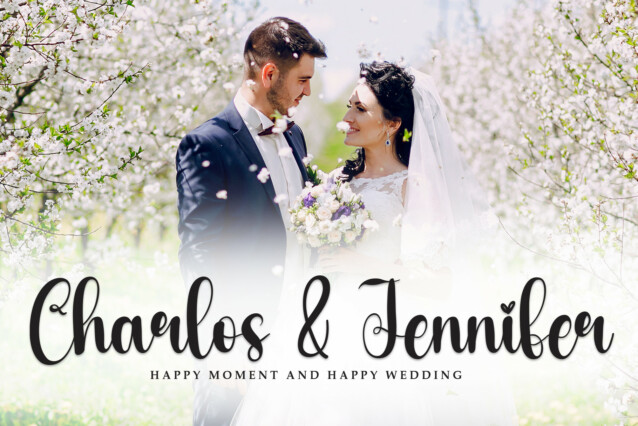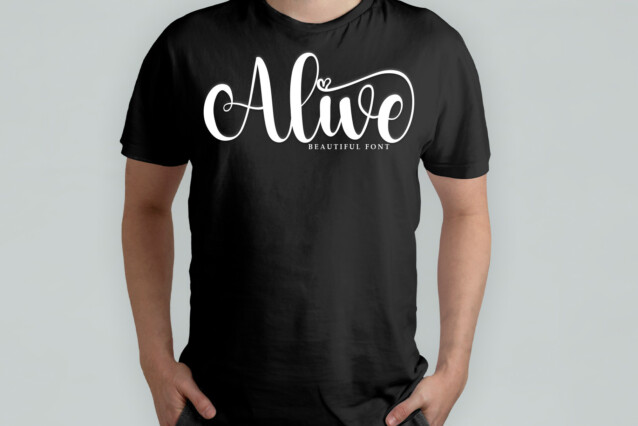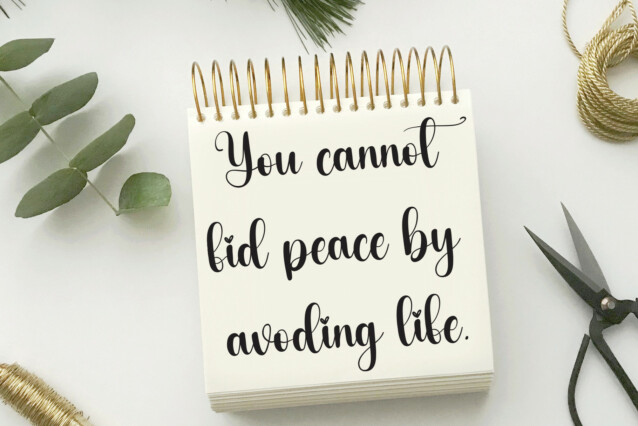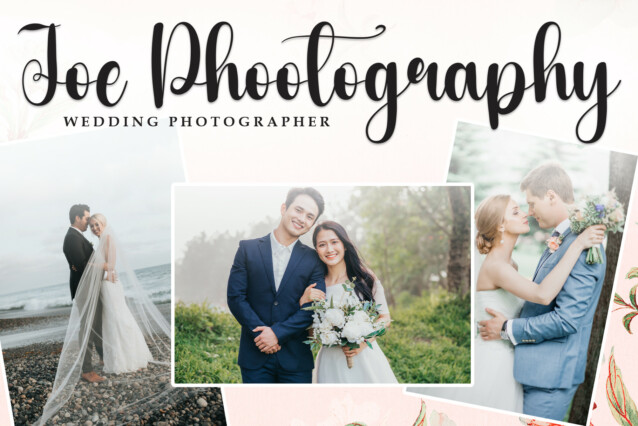
Online Script Typeface
Online Script Typeface is an exquisite handwritten font, masterfully designed to become a true favorite. It maintains its classy calligraphic influences while feeling contemporary and fresh. Fall in love with it and bring your projects to the highest levels!